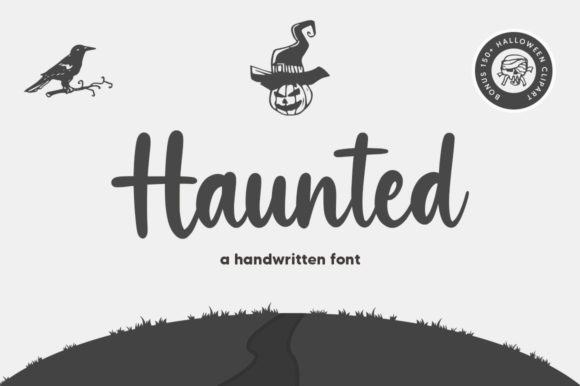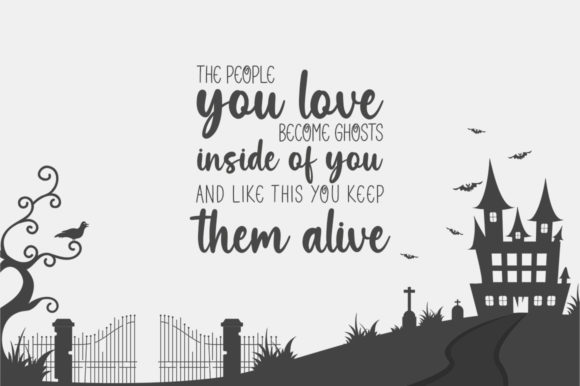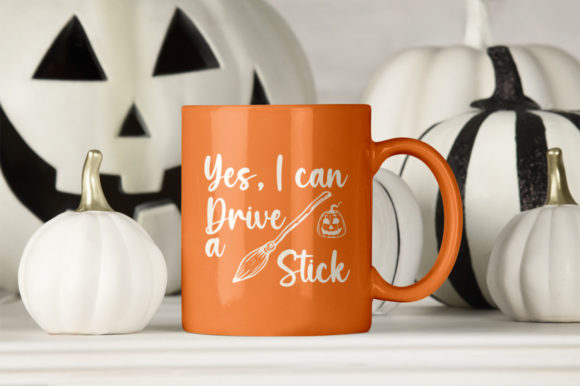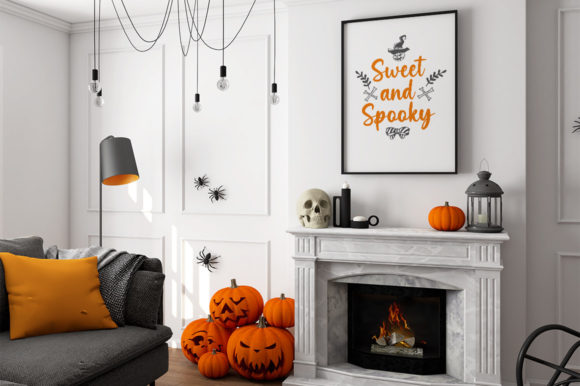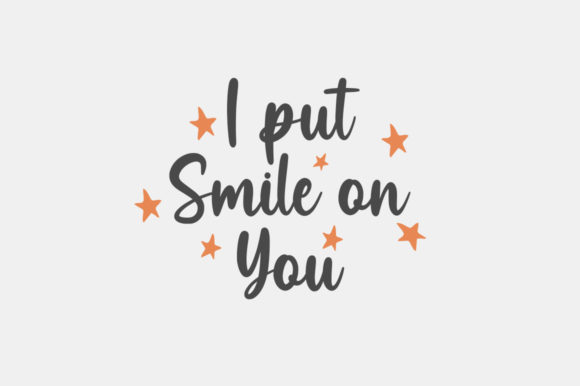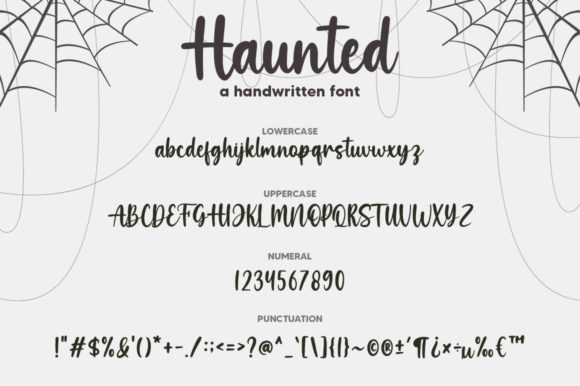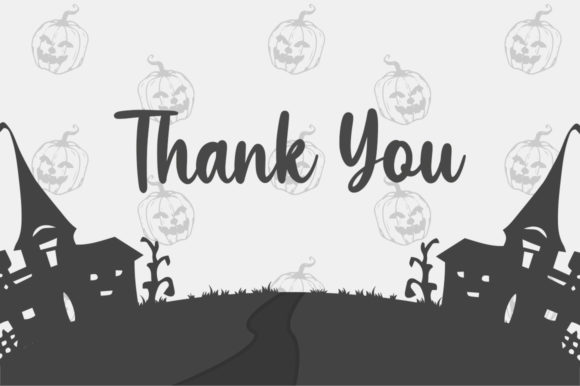
Haunted Font
About Haunted Font
Haunted is a chic, refined script font that emanates sophistication and elegance. Its stylish alternates and ligatures make this font the perfect match for any project.